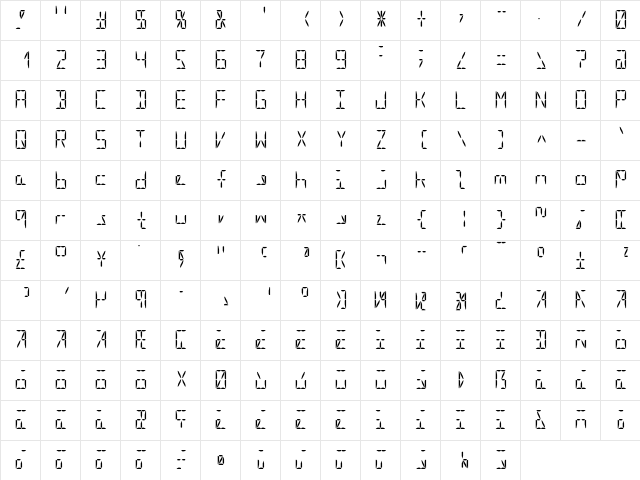
Segment16A Regular Font Preview
Segment16A Regular
Segment16A Regular Font Details
| Designer | Daniel Wikholm |
Design Context for Segment16A Typeface
Segment16A is a composed and adaptable typeface that performs quietly and consistently across a wide range of design contexts.